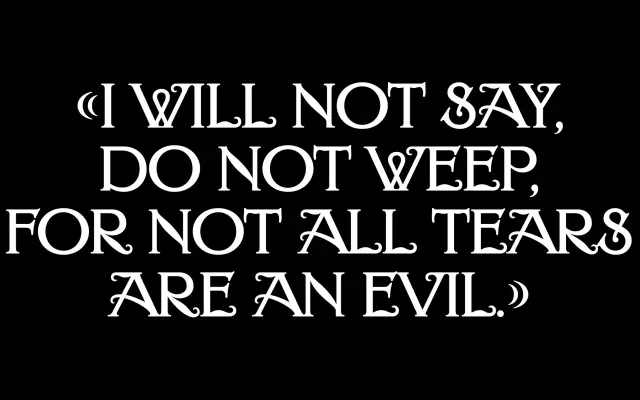
Rigaldon
OTT Foundry · Eliott Grunewald
A contemporary revival of Giraldon, the early 20th-century French Art Nouveau typeface originally distributed by Deberny & Cie, redrawn for digital use as a capitals-only display face.
Based on the original drawings of Adolphe Giraldon, a French illustrator and decorator associated with the Art Nouveau period, this revival was initially commissioned for use as lettering in the reprinting of classic French novels. The typeface is available only in capitals, drawn close to the original, with additional ligatures, symbols and glyphs added for contemporary digital use. Its highly ornamental, organic forms make it well suited to period-styled editorial work, book covers and decorative display contexts.
Rigaldon is a capitals-only display typeface reviving Giraldon, an early 20th-century French Art Nouveau typeface. Its highly ornamental, organic letterforms place it firmly in the display category with an art nouveau subcategory.